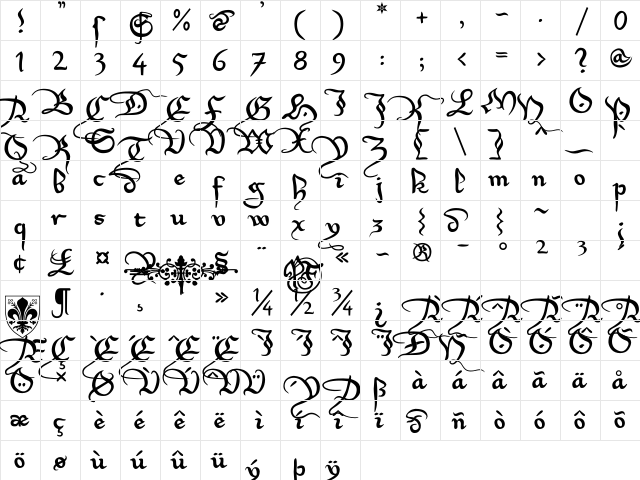
Xirwena Regular
| Designer | Pia Frauss |
Design Context for Xirwena Typeface
Xirwena is a composed and adaptable typeface that performs quietly and consistently across a wide range of design contexts.